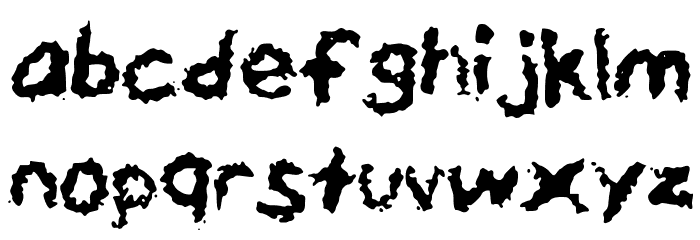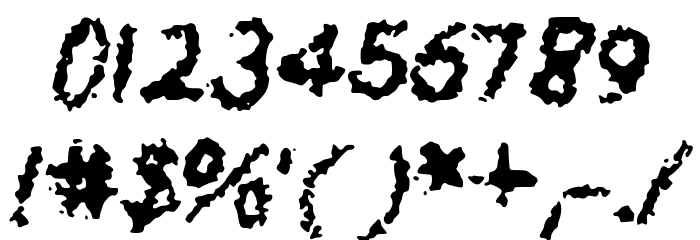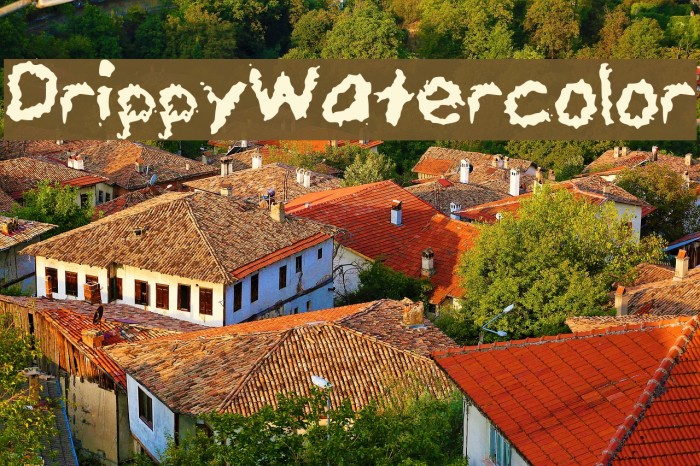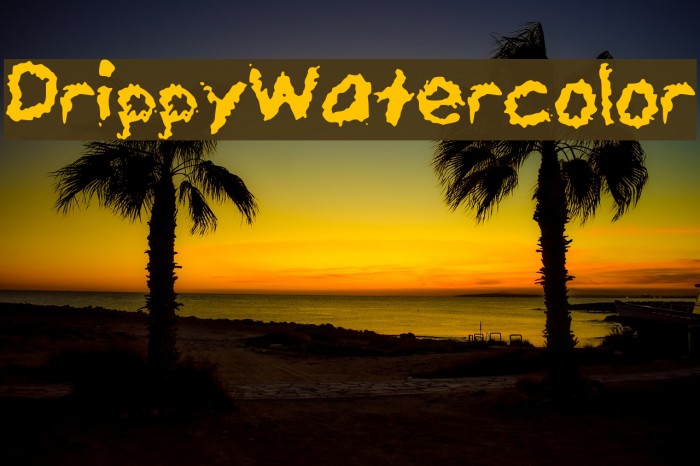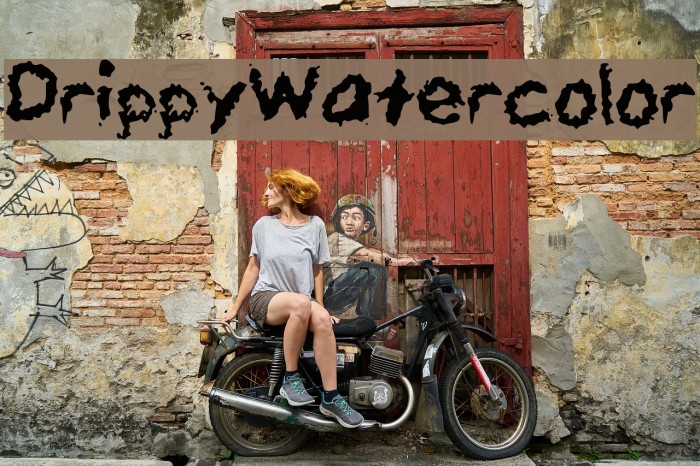
DrippyWatercolor Font
This font features a unique, artistic style that mimics the appearance of dripping watercolor paint. Each character is designed with irregular edges and varying thickness, creating a dynamic and fluid look. The uppercase and lowercase letters maintain a consistent theme, with a playful yet slightly chaotic aesthetic. Numbers and special characters follow the same design principles, ensuring a cohesive appearance across all elements. The font's organic and spontaneous feel makes it ideal for creative projects that require a touch of whimsy and artistic flair.
A drippy, watercolor-inspired font with an artistic, fluid design.
- Proposed Projects: Ideal for art projects, creative branding, event posters, and any design requiring a whimsical, artistic touch.
- Overall Style: Artistic, Creative
- Use Case: Logos, Posters, Artistic Designs